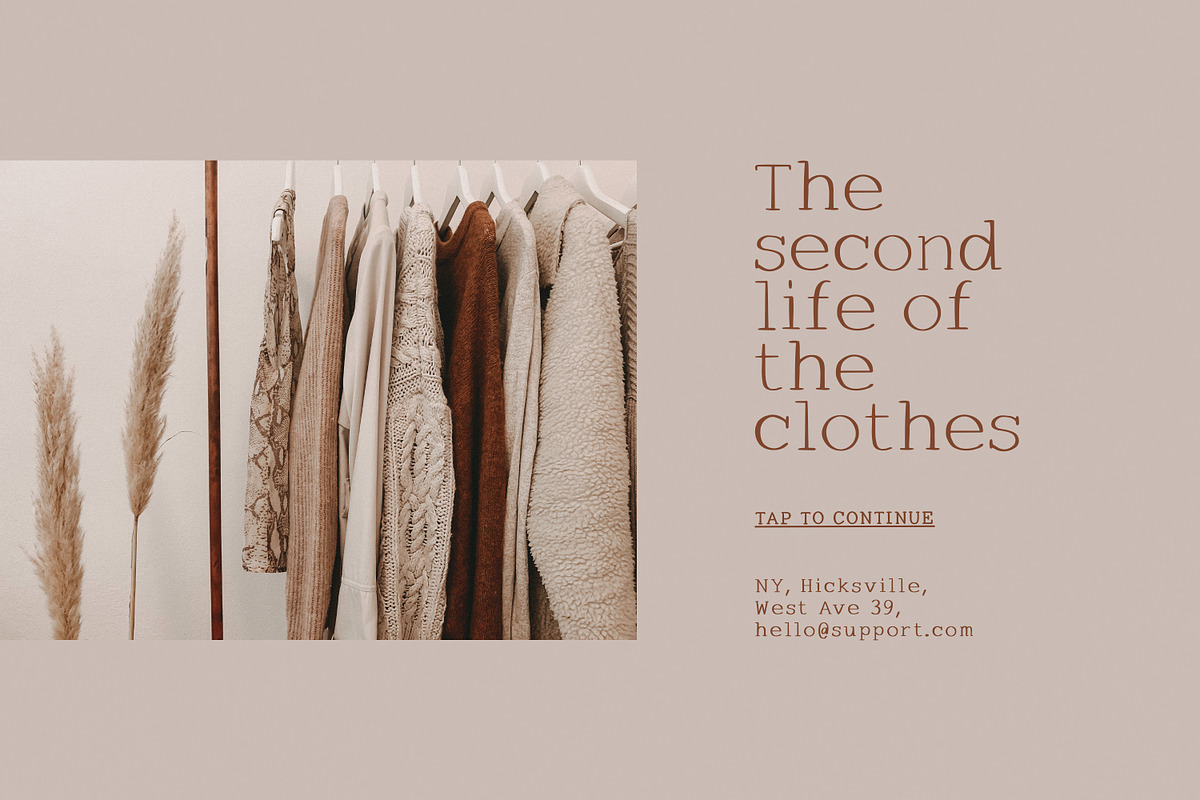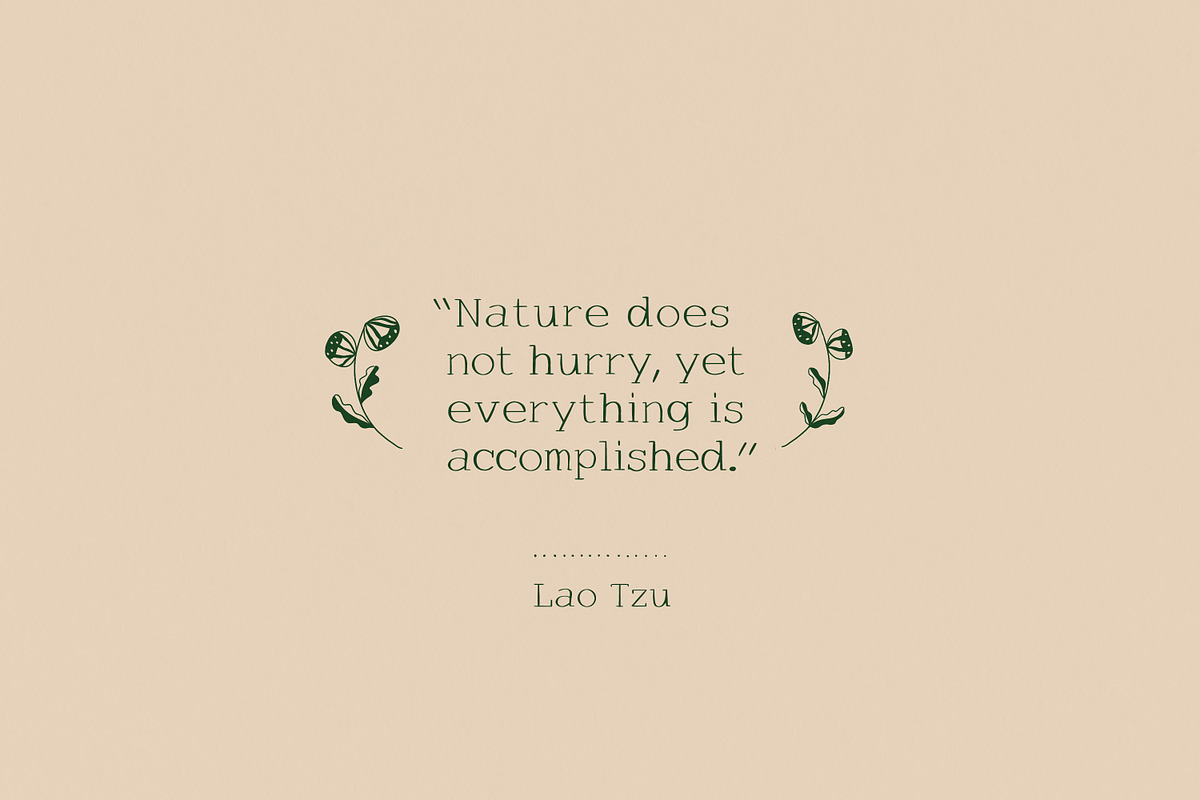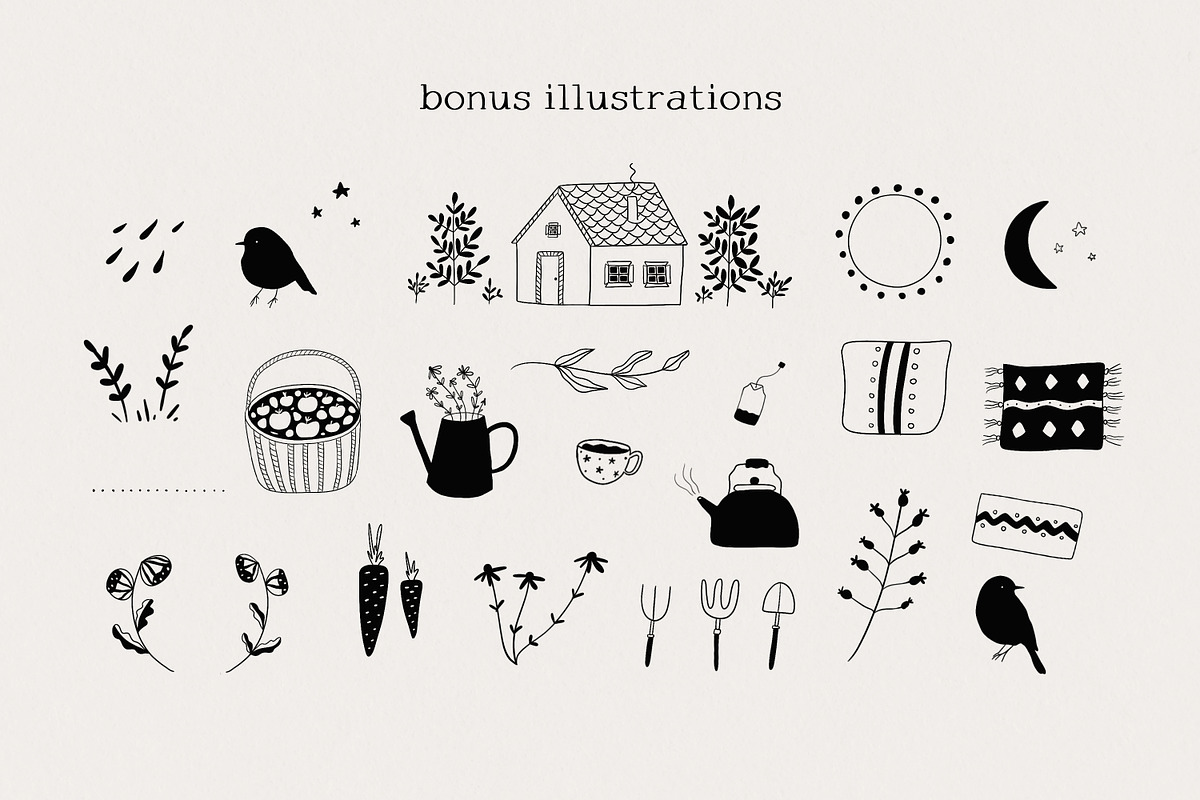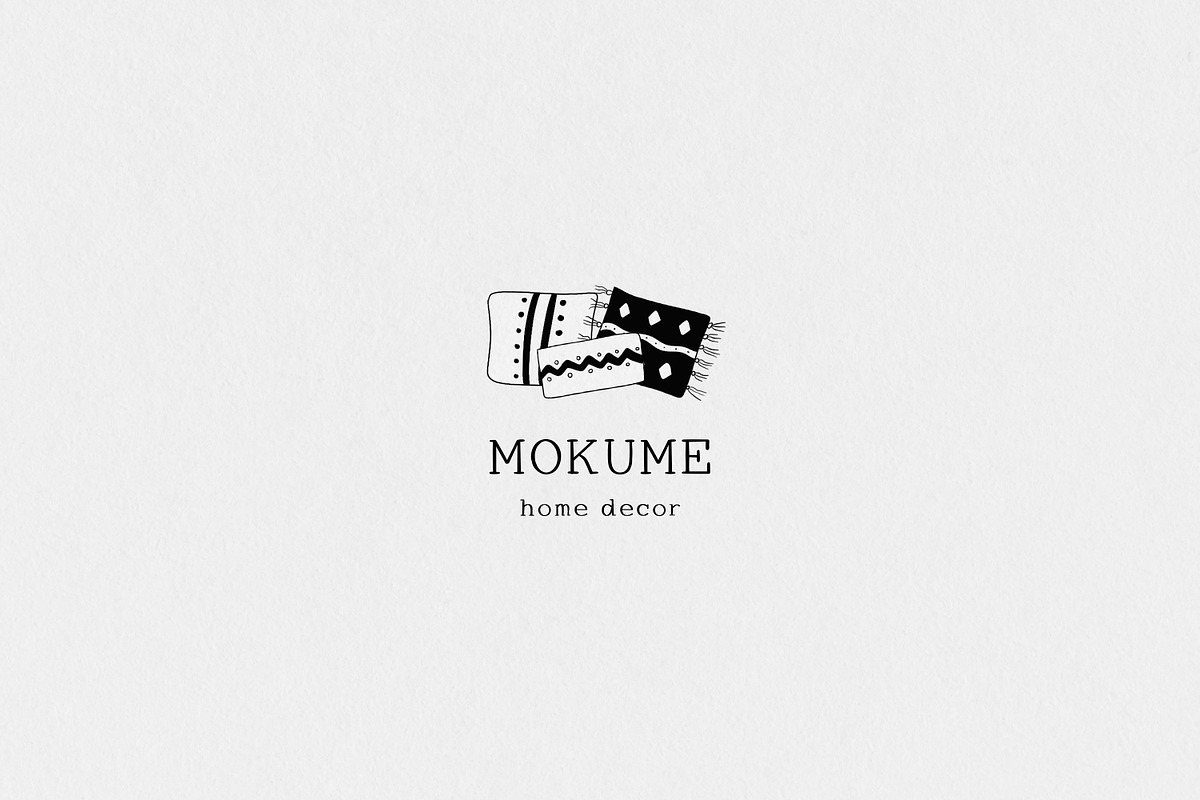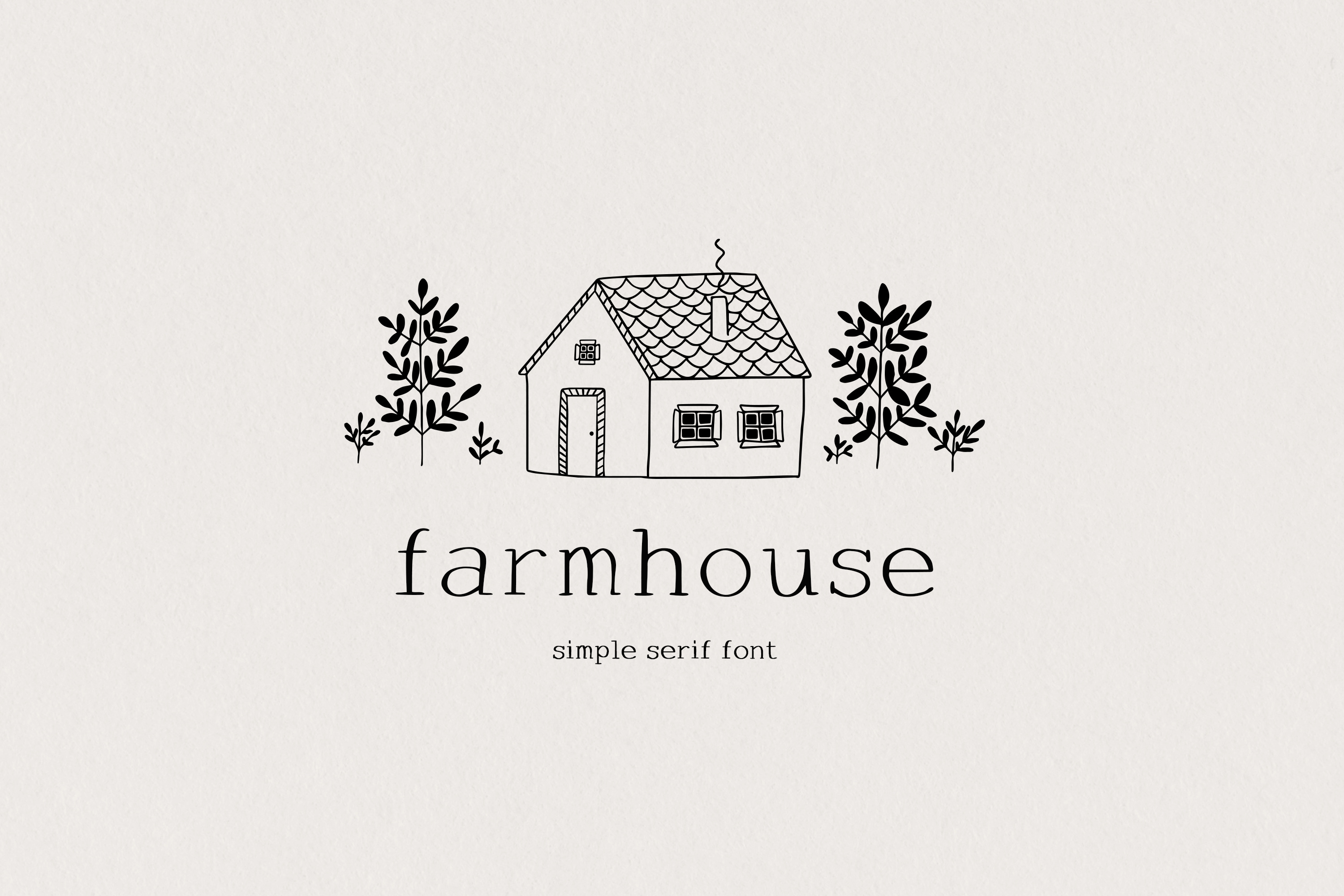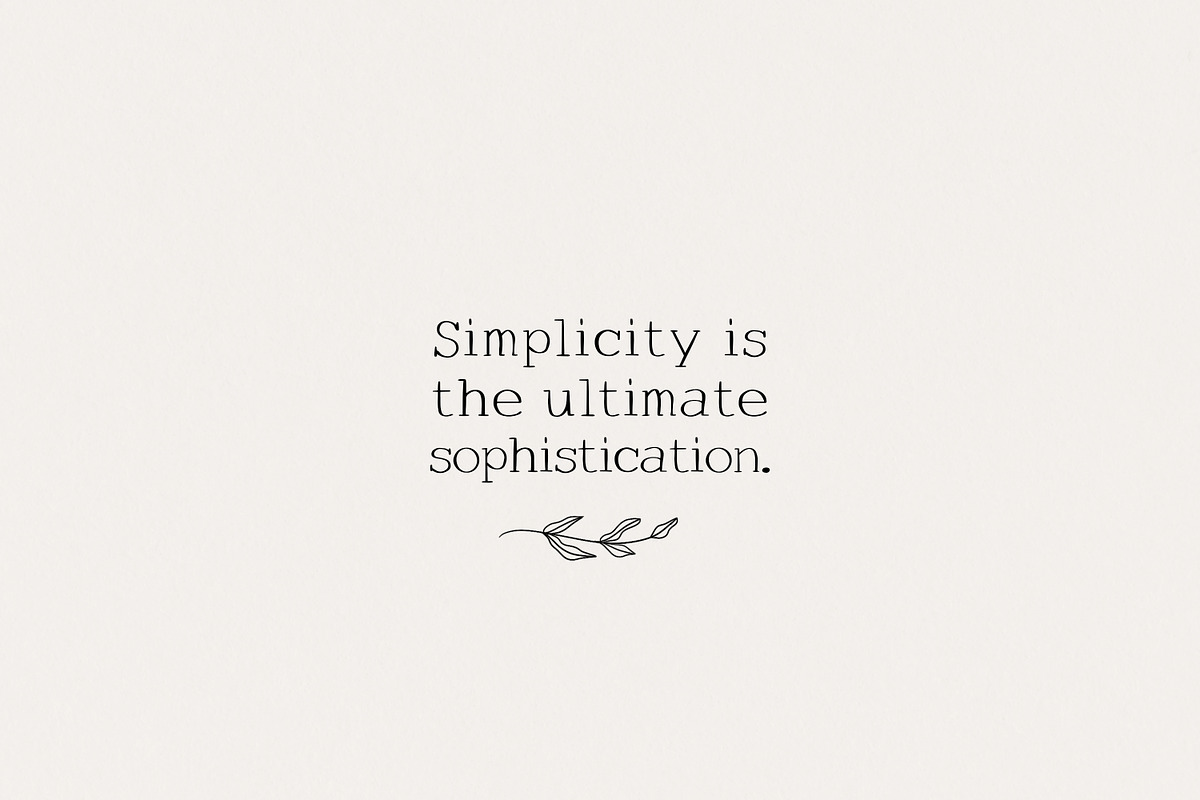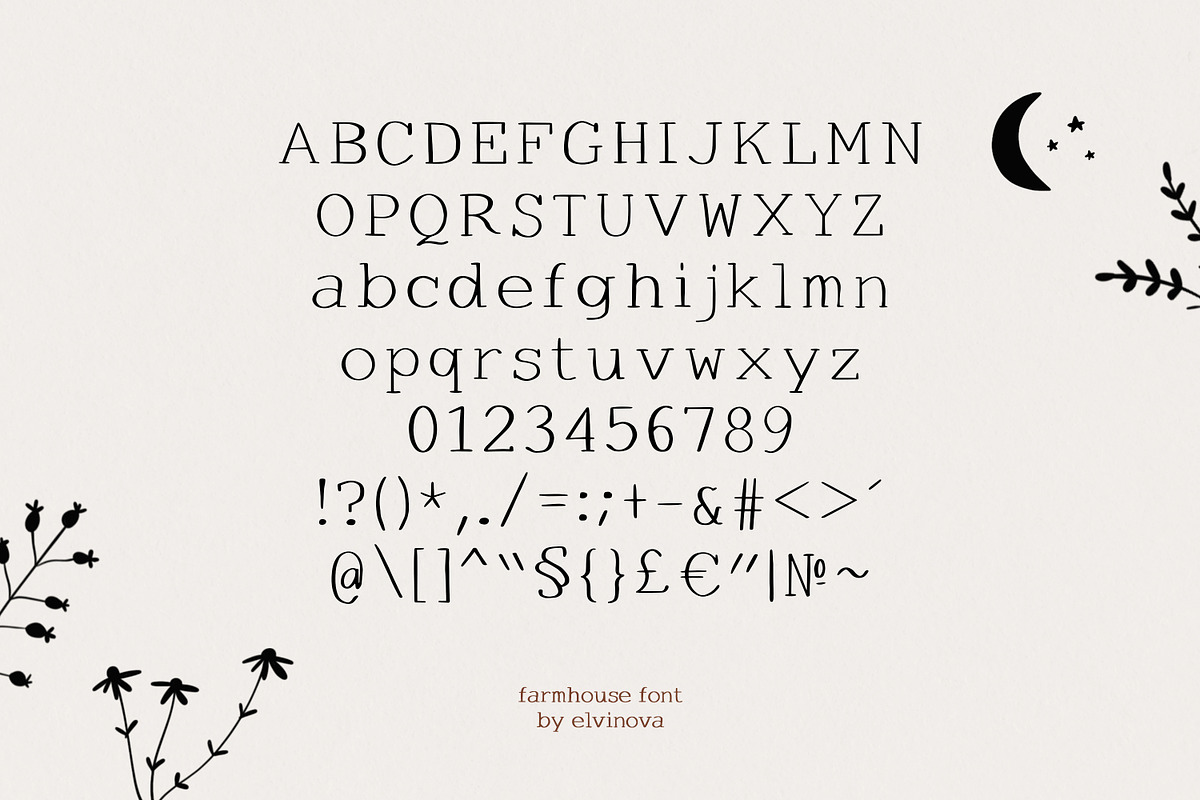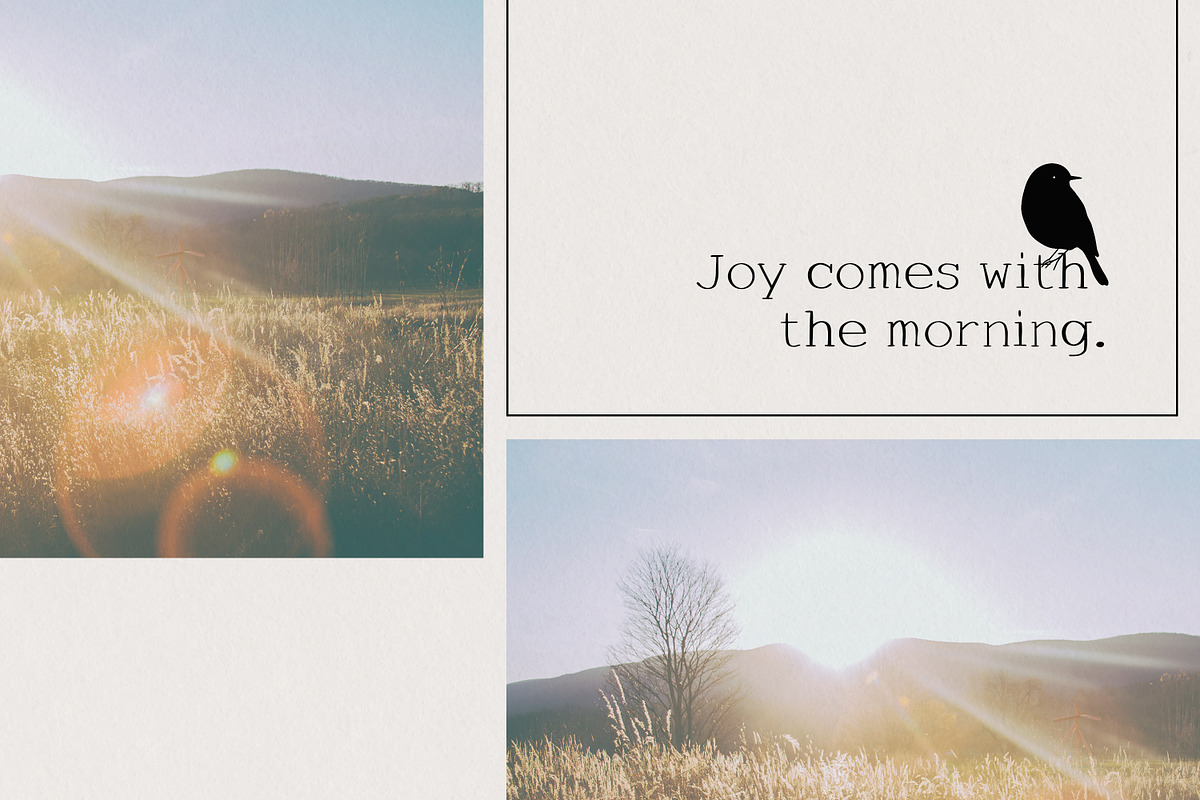
Farmhouse serif font
Farmhouse is a sweet collection of display serif font with cute illustrations. Perfect for logos, cards, branding and other designs. I hope you enjoy it!
Multilingual support.